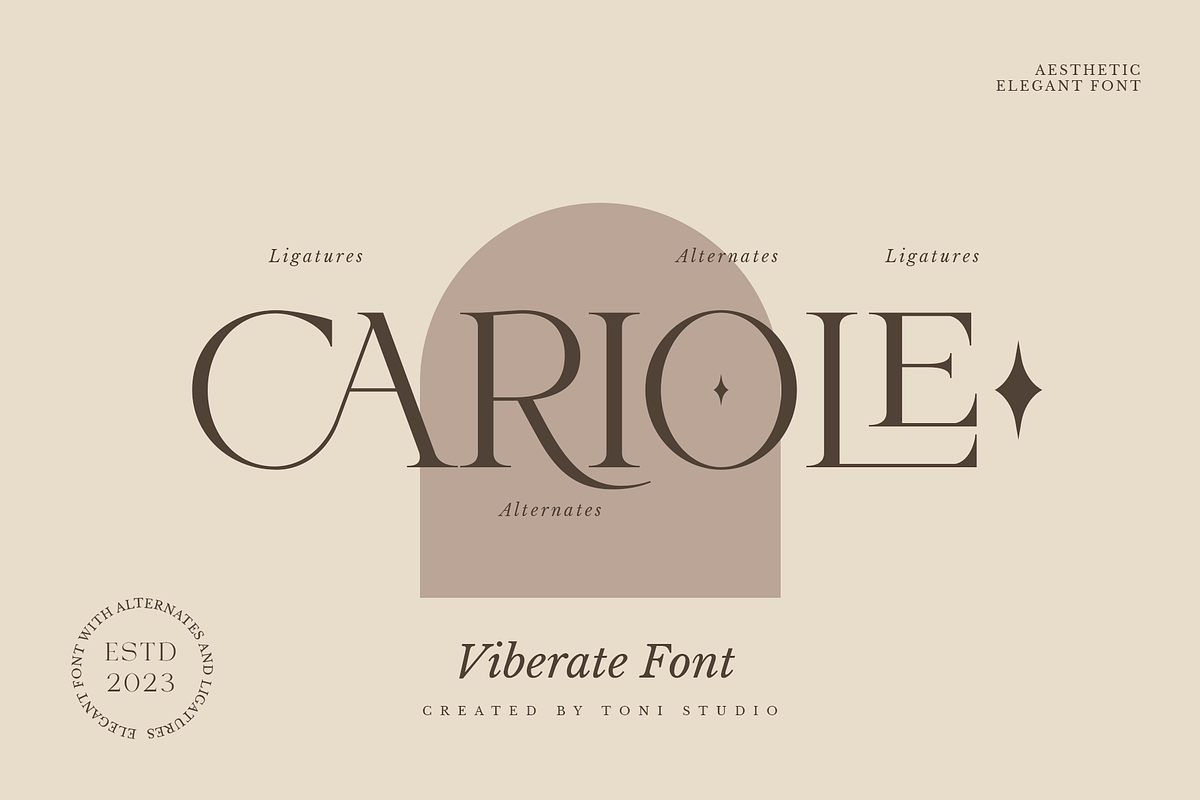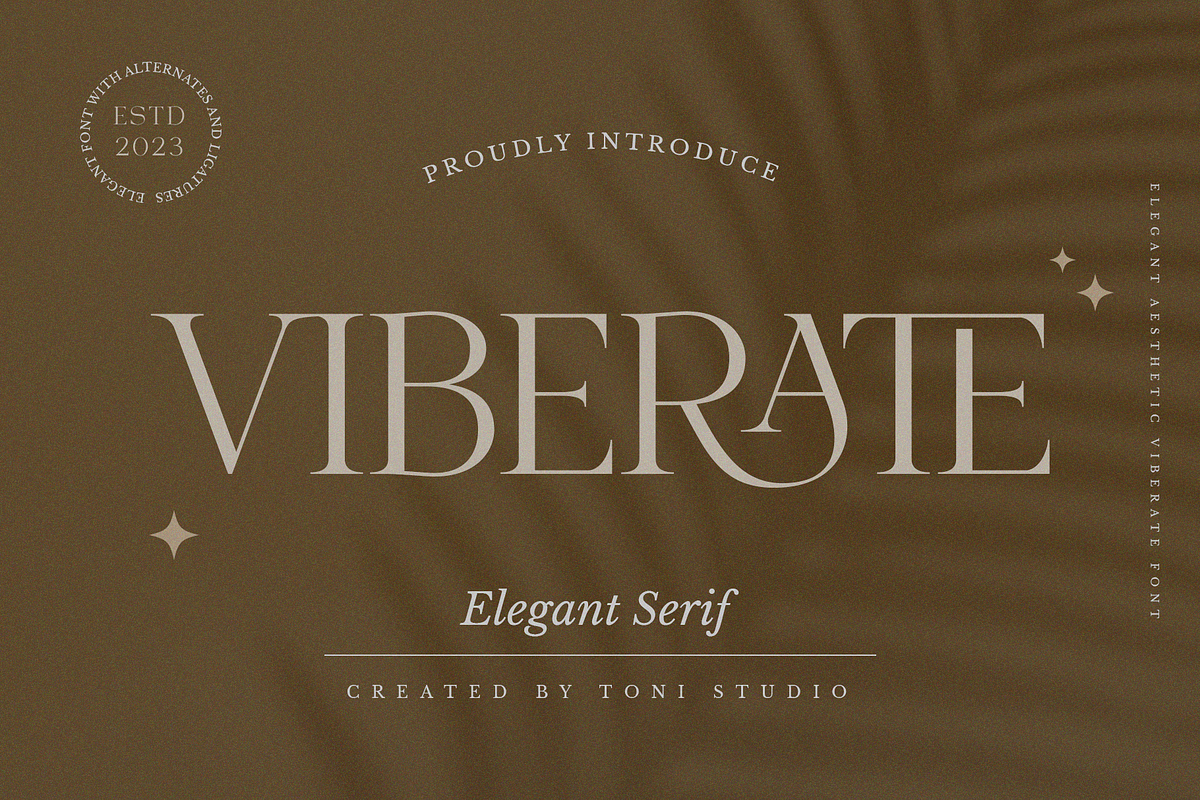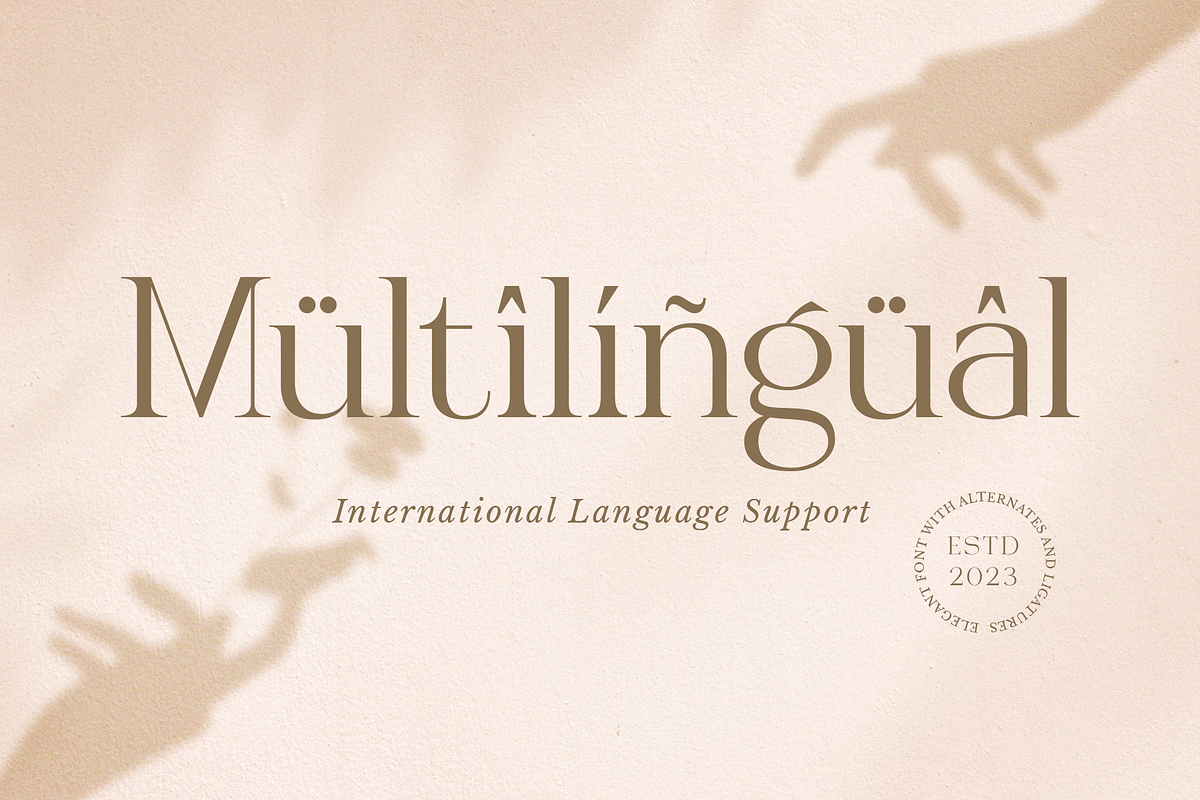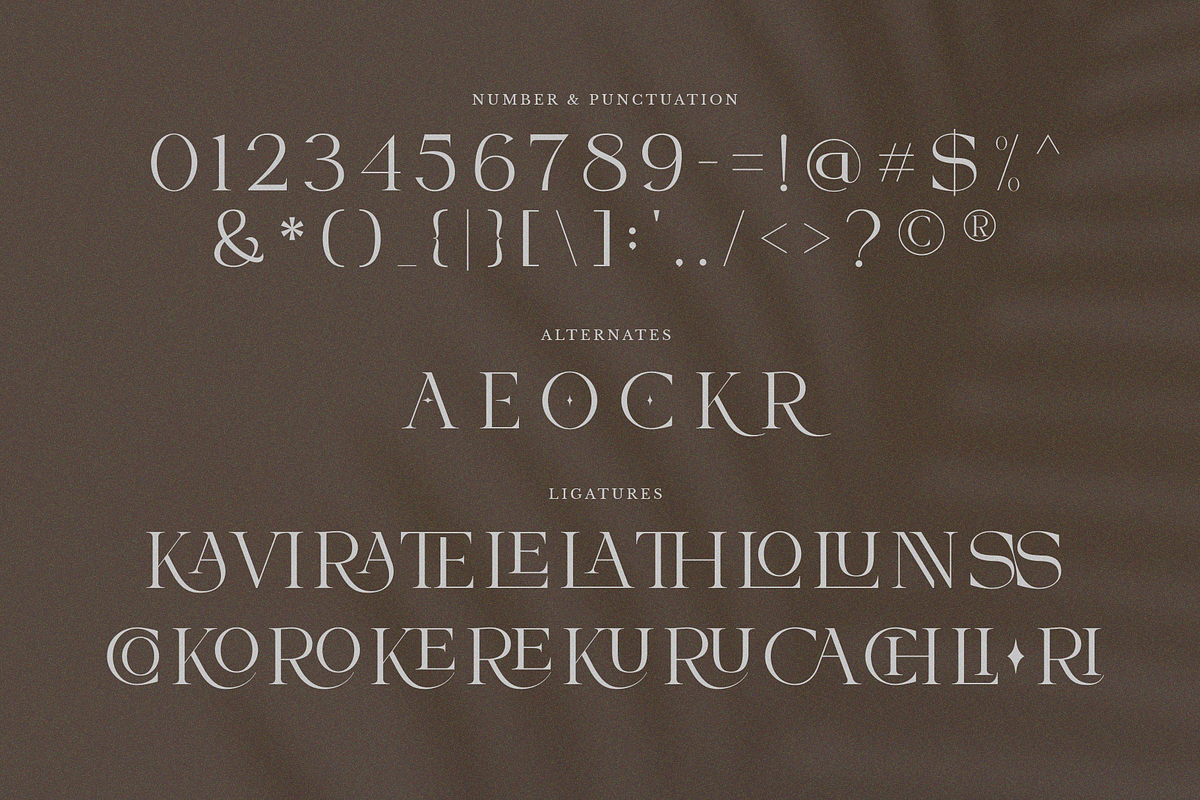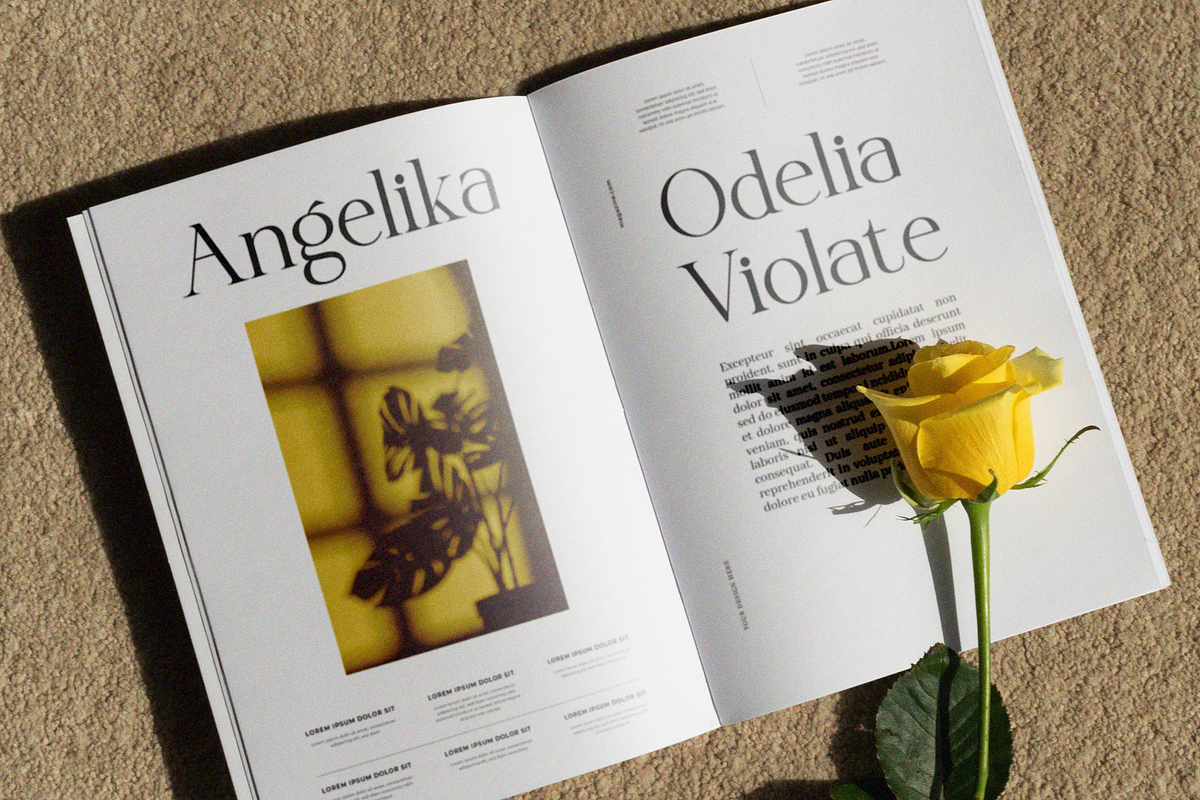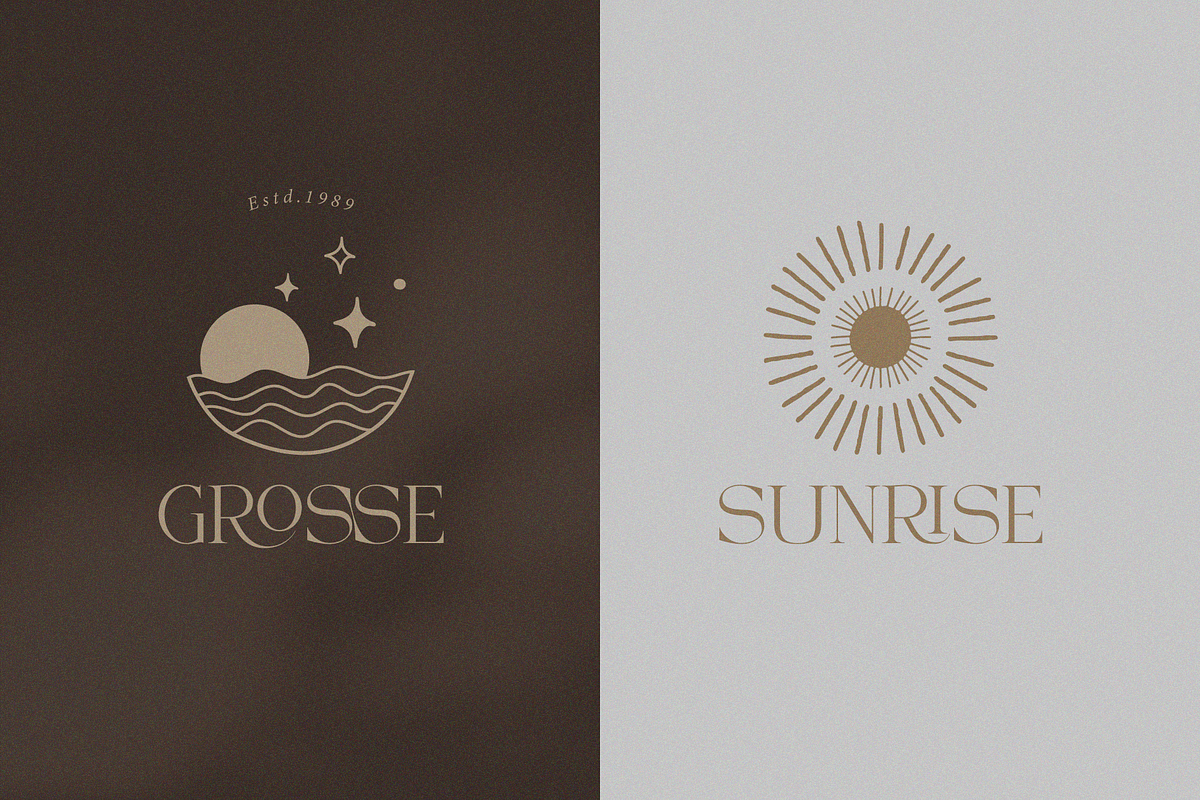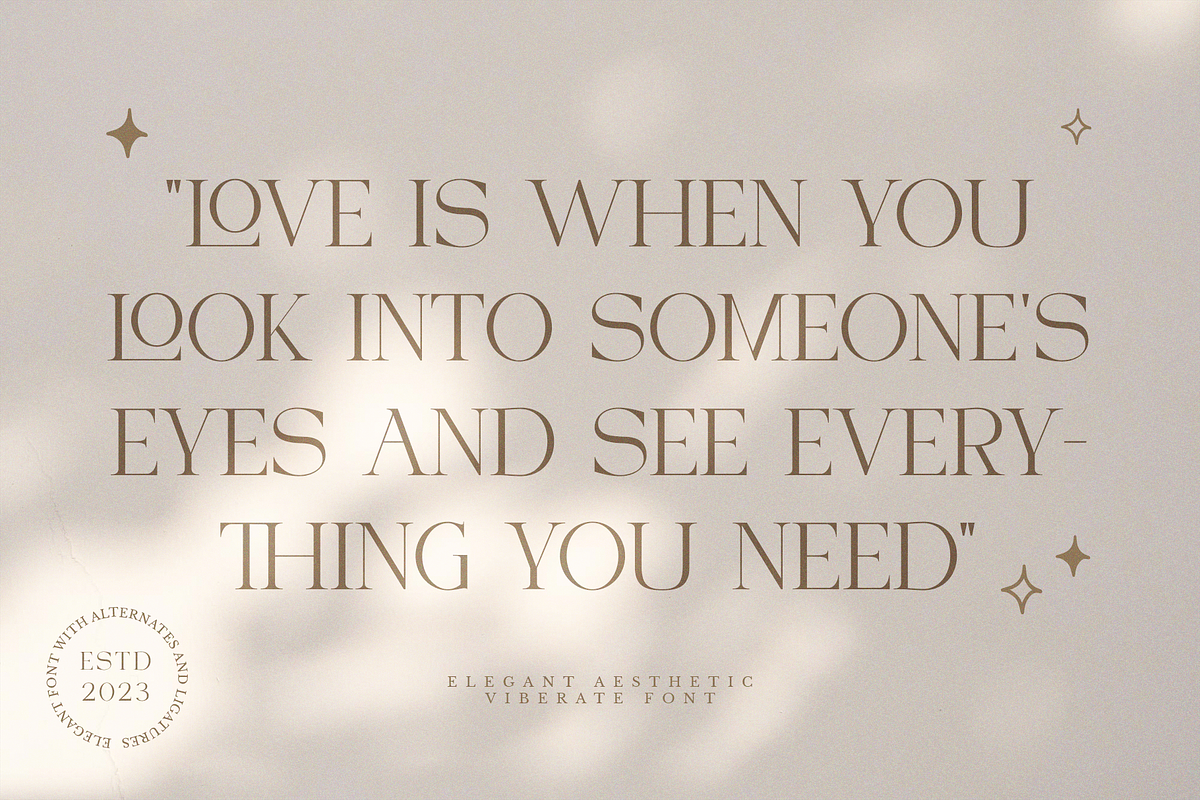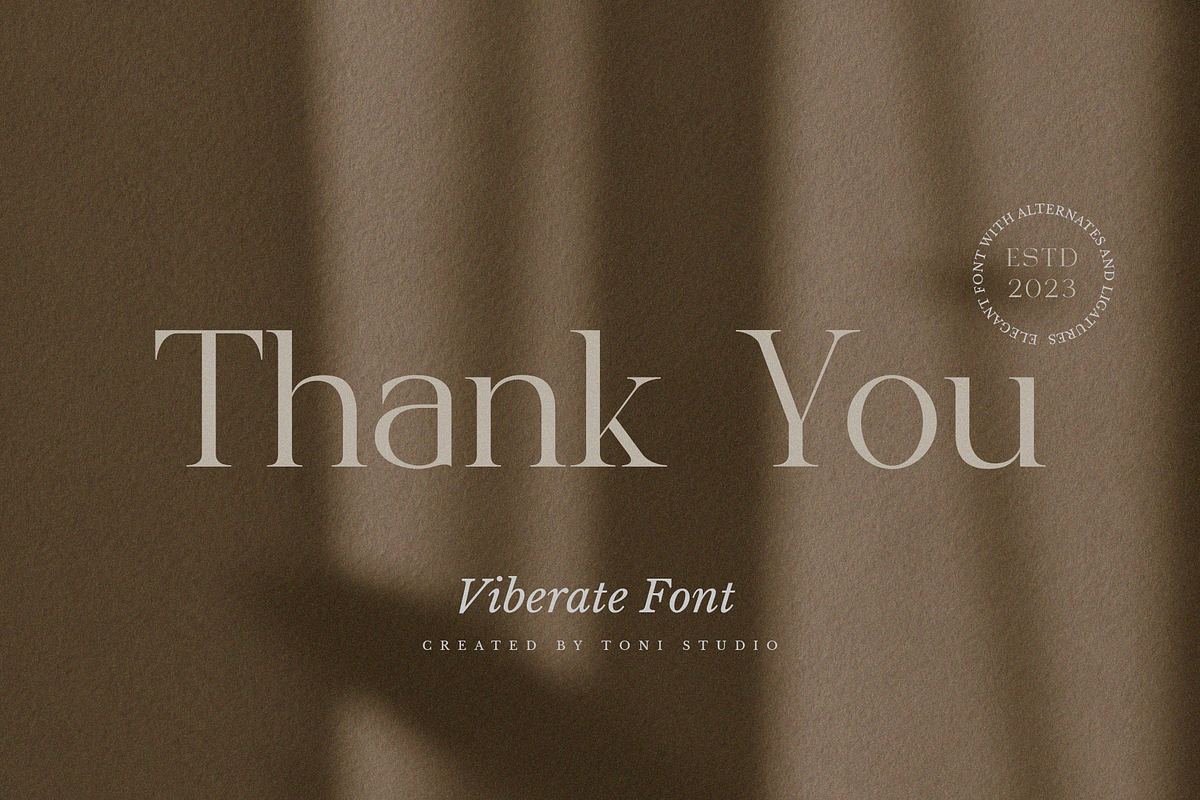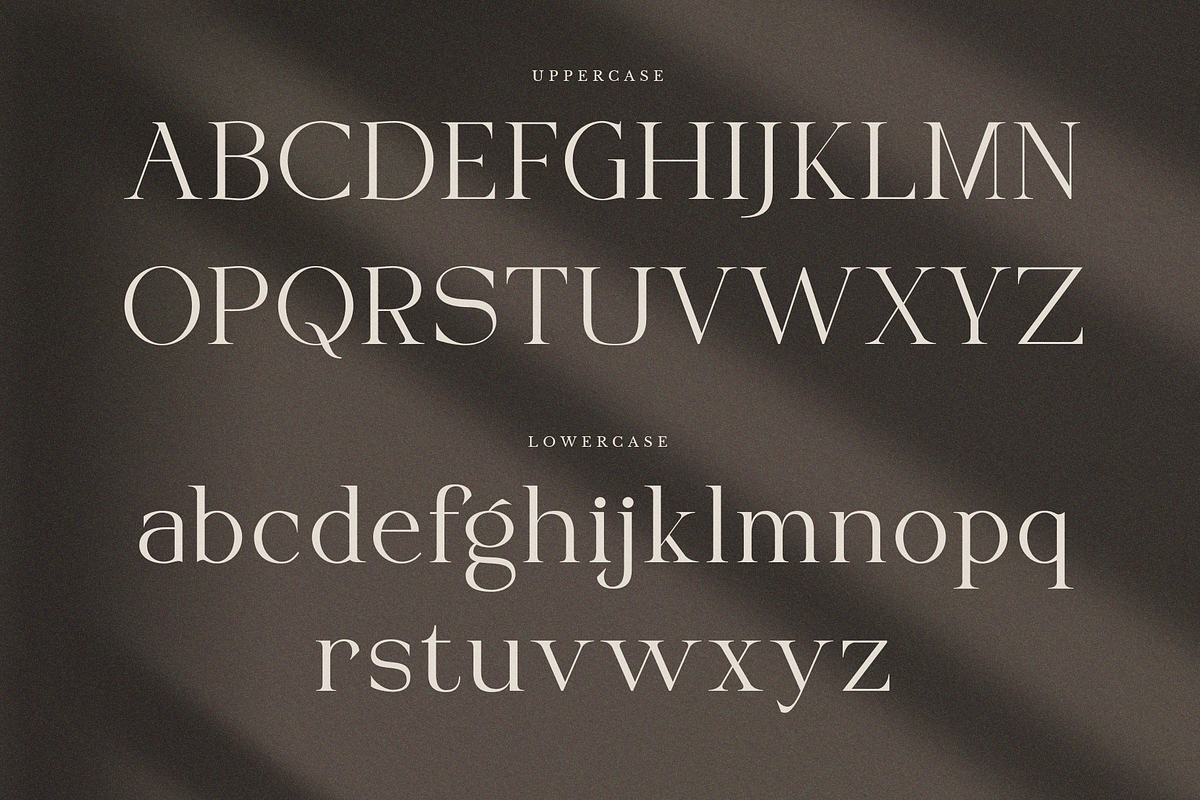
VIBERATE || ligature typeface
introducing "VIBERATE"...!, a serif font designed with an elegant typeface and a touch of interconnected charm. The typeface features clean lines and smooth serifs, striking the perfect balance between classic and contemporary design. A balanced font composition ensures a versatile and adaptable design, making it suitable for a variety of creative projects such as logos, titles, magazines and more. What do you get :